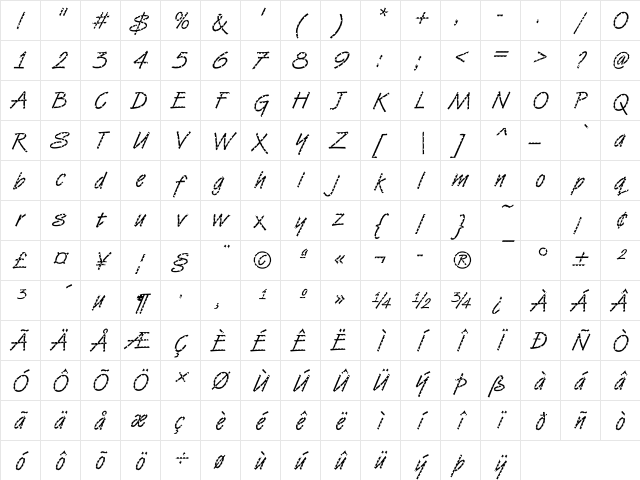
Complete VanDijk15 Becker Regular glyph index. Displaying only characters natively supported by VanDijk15 Becker Regular font.
VanDijk15 Becker is a composed and adaptable typeface that performs quietly and consistently across a wide range of design contexts.
Pro Tip: Use VanDijk15 Becker in both headline and body roles to test its range before committing to a single application.